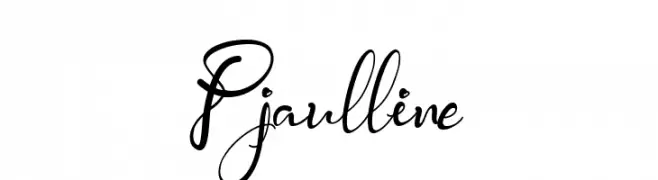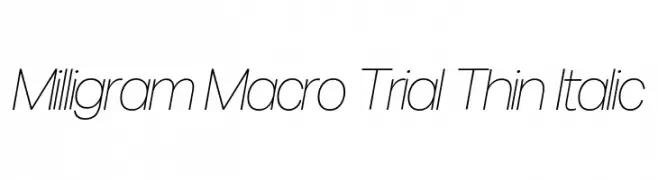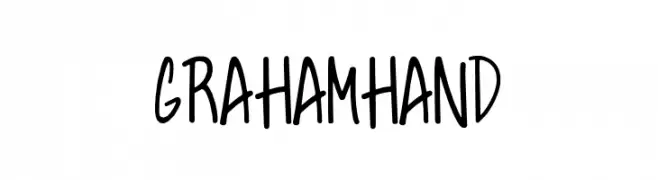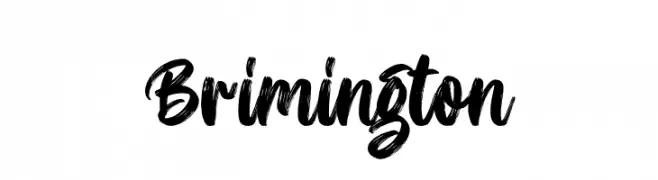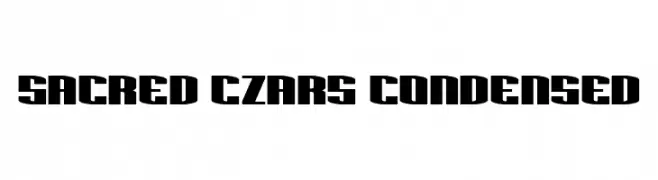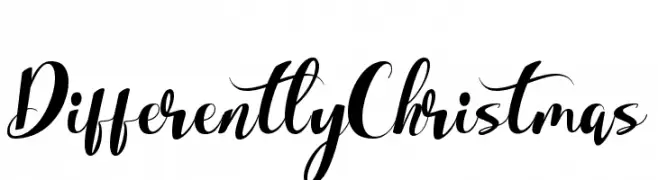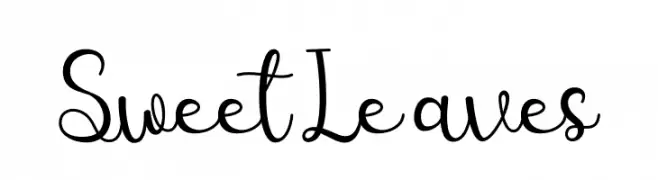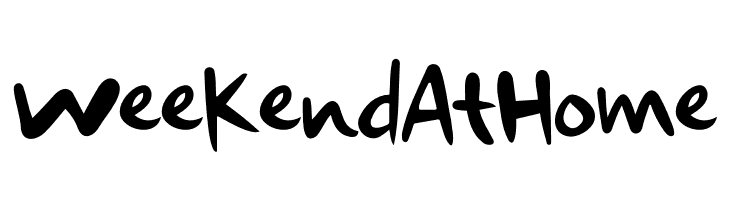
A lively and elegant script font with flowing, cursive letterforms.
A bold, geometric stencil-style font with a modern, industrial look.
A sleek, thin, and italicized modern font with elegant elongated characters.
A playful, casual handwritten font with smooth, flowing lines.
A bold, brush-style font with a dynamic and artistic flair.
A bold, condensed font with a geometric and impactful style.
A dynamic script font with fluid, cursive letterforms and a handwritten aesthetic.
An elegant and flowing script font with graceful curves and fluid strokes.
A playful and whimsical script font with flowing, interconnected letters.
A geometric, decorative font with characters in hexagonal frames.